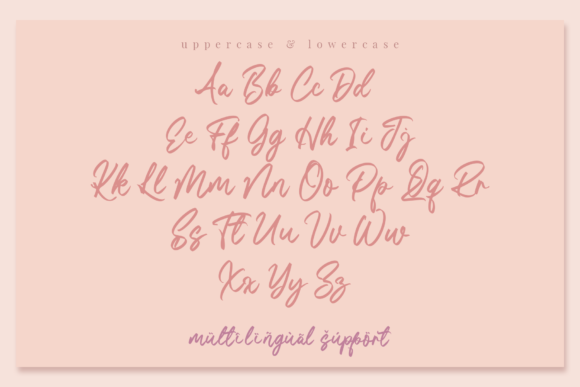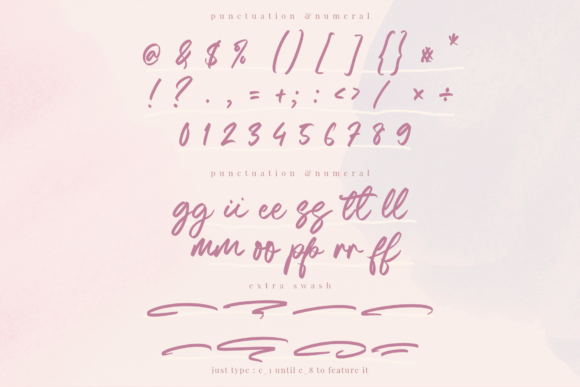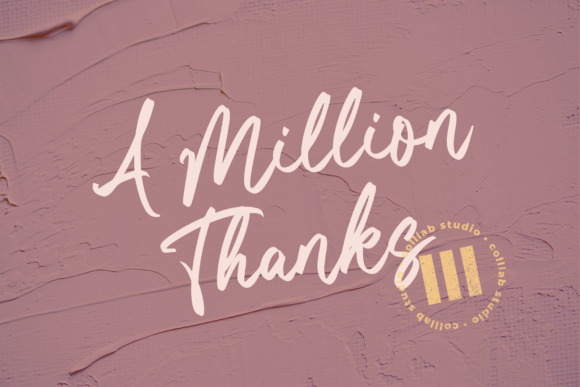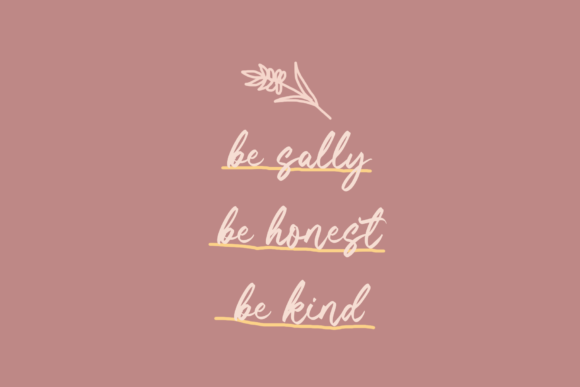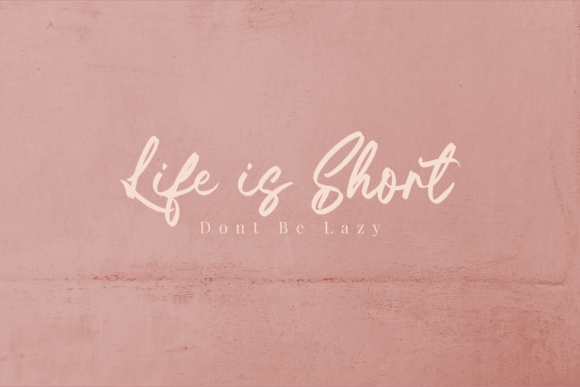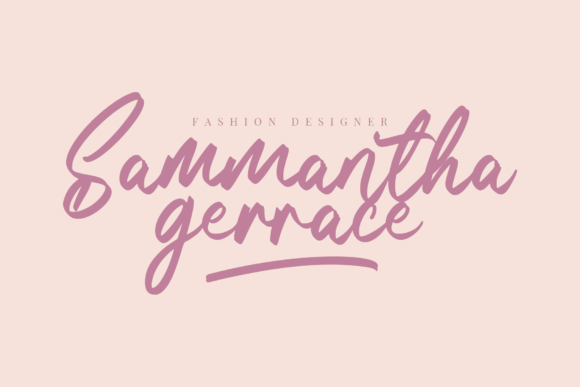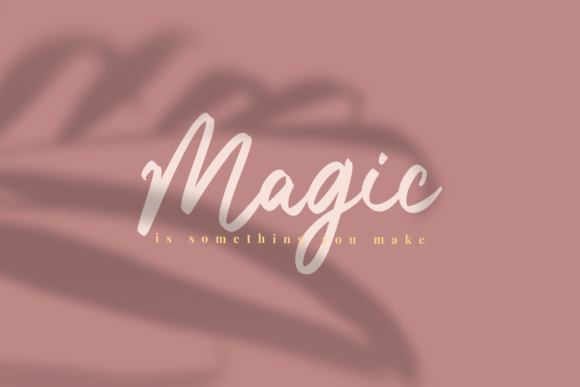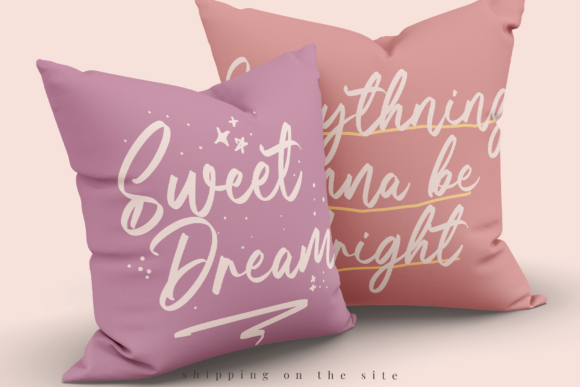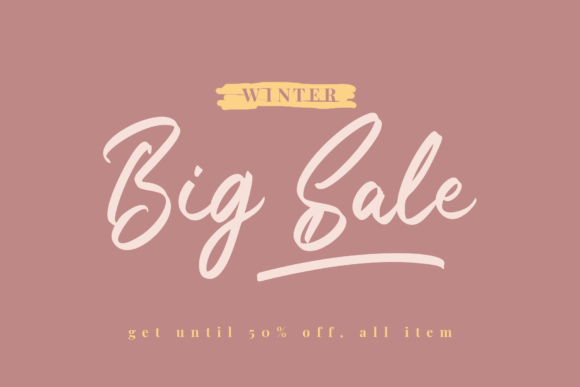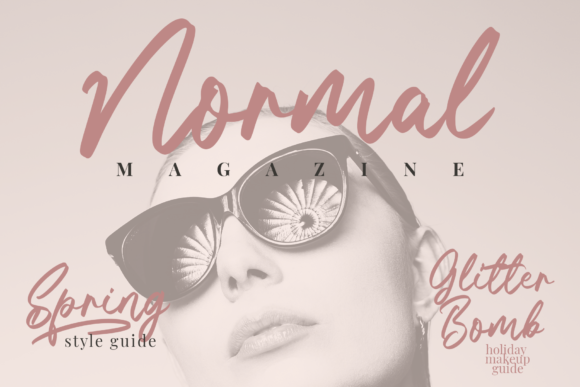
Amore Eiffel Font
About Amore Eiffel Font
Amore Eiffel is a beautiful, elegant, and flowing handwritten font. It has well-balanced characters and as a result, it matches a wide pool of designs. Add it to your most creative ideas and notice how it makes them come alive!